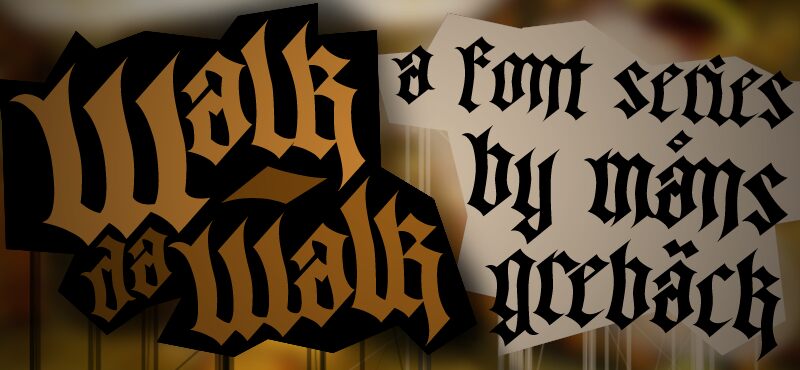
Walk da Walk Two by Måns Grebäck is a free medieval blackletter font with a dense, dramatic silhouette. Its sharply tapered strokes and deep angular cuts create a restless texture across the lettering. Long hooked flourishes push beyond the main letterforms, and the tight joins give words an interlocked appearance.
Merchandise and poster design can use this severe profile for metal bands, tattoo studios, or festival graphics. Its blade-like details connect those applications to medieval fantasy and extreme-music imagery.